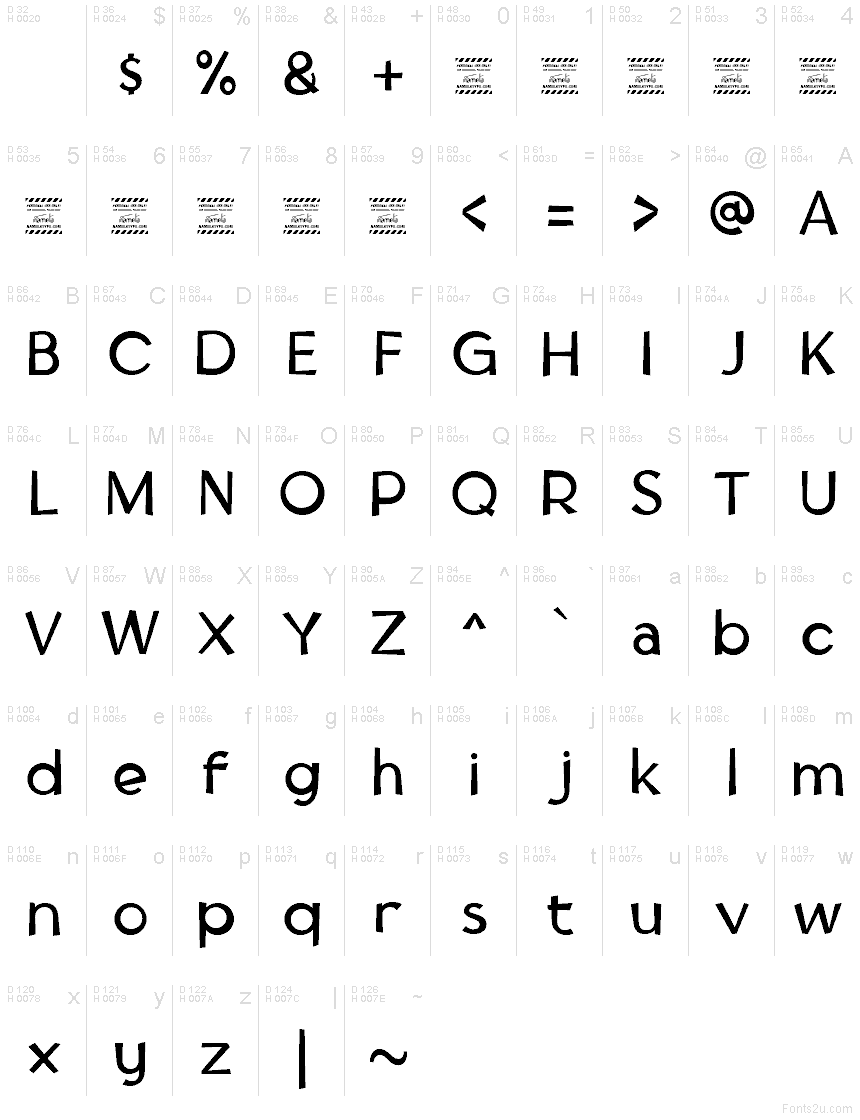
Tufuli Arabic DEMO Light
Tufuli Arabic Light font by Namela Type is a minimalist and geometric display font featuring smooth and clean lines. A modern comic-style typeface from the Tufuli Arabic family, it achieves legibility with uniquely designed small form letters in a light style. In addition, this stylized version brings it close to hand illustrations with ink differences between lines.
This free display font will be perfect for cartooning, comics creation, book covers, DVD movie covers, and storyboards as well as clothing merchandise like t-shirts or shopping bags. Its clear letters are applicable in logos for brands marketing fun activities and services such as toys rental or babysitting agencies.